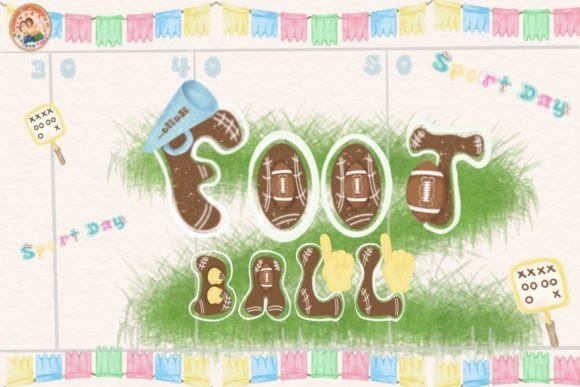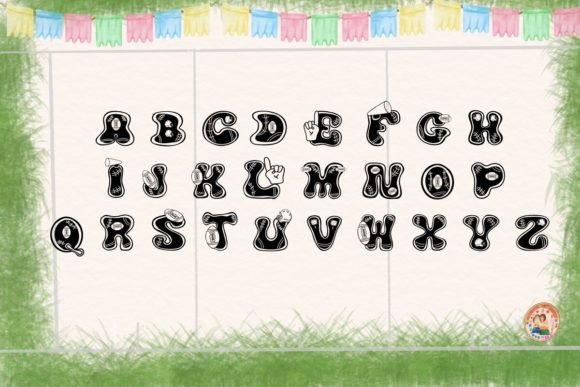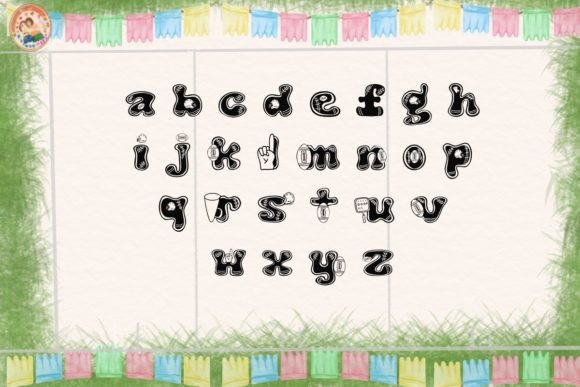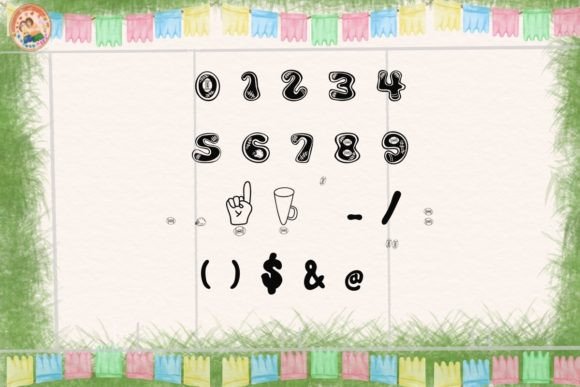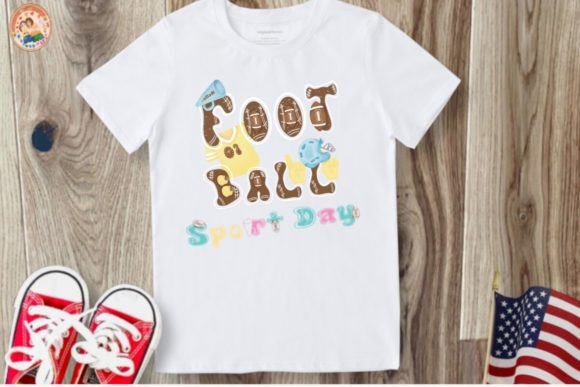
Get Ready to Score Big with Football Font
You know that feeling when you’re brainstorming ideas for a project and suddenly, everything clicks into place? You see a vision of colorful graphics, playful text, and a dash of whimsy. That’s exactly what happened when we stumbled upon Football Font – a groovy and cute font that’s perfect for adding a touch of personality to your designs.
This delightful font is designed to help you create gorgeous invitations, beautiful stationery art, eye-catching social media posts, and cute greeting cards that will leave a lasting impression. Whether you’re a seasoned designer or a creative newbie, Football Font is a valuable addition to your toolkit. Its versatility and charm make it a go-to choice for designers looking to add a playful twist to their projects.
Key Features of Football Font
- Font Family: Football Font is a unique, hand-drawn font designed specifically for sports and entertainment purposes.
- Unique Characteristics: The font features dynamic, flowing lines and bold, expressive characters, making it perfect for capturing the energy and excitement of sports events.
Football Font Review
Overall, I think Football Font is a fun, energetic font that could add a touch of sports excitement to any design project. ✨ The font’s bold lines and rounded edges give it a dynamic feel, making it perfect for headings and titles.
- The font’s varied letterforms and quirky details add a playful touch to any text.
- The uppercase letters are particularly well-designed, with a nice balance of boldness and flair.
- The font’s sans-serif style makes it easy to read, even in smaller sizes.
However, there are a few limitations to consider. ⚠️ The font’s lowercase letters can look a bit messy, with some of the letterforms feeling a bit disconnected from one another.
- The font’s irregular letter spacing can make it difficult to read in certain contexts.
- The font’s lack of italic or oblique styles can limit its versatility.
- The font may not be suitable for body text, due to its busy and attention-grabbing nature.
Overall, I think Football Font is a great choice for projects that need a bold, energetic feel. While it may have some limitations, its unique style and playful details make it a fun and engaging font to work with.
Football Font is commonly used in sports-themed designs, such as:
- Sports team logos and branding.
- Scoreboards and stadium signage.
- Sports-themed posters and flyers.
- Use Football Font to create a sense of movement and energy in your design.